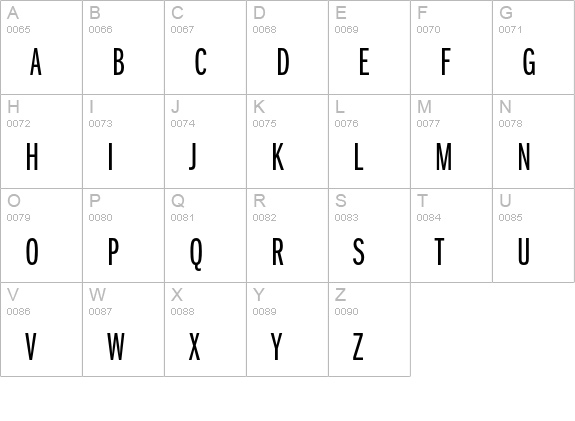
Franklin Gothic EF Book XComp is a versatile and classic font that exudes elegance and sophistication. With its clean lines and balanced proportions, this font is perfect for a wide range of design projects, from editorial layouts to branding materials. The Book weight of Franklin Gothic EF offers a subtle and refined look that is both modern and timeless. The best part about Franklin Gothic EF Book XComp font is that it is available for free download at FontsMarket.com. This means that you can easily access and use this high-quality font in your projects without any cost. Whether you are a designer looking for a reliable go-to font or a business owner in need of a professional typeface, Franklin Gothic EF Book XComp is sure to meet your needs. Download it today and elevate your designs with this elegant and freely available font.